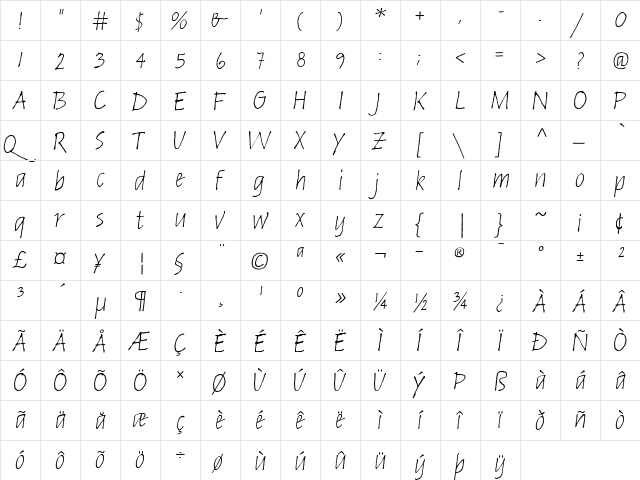
RussellInformal RomanItalic Font Preview
RussellInformal RomanItalic
Design Context for RussellInformal Typeface
RussellInformal takes a measured approach to typography — its balanced proportions and neutral character make it a reliable workhorse for both digital and print work. Its italic angle brings a sense of urgency and motion to the letterforms.